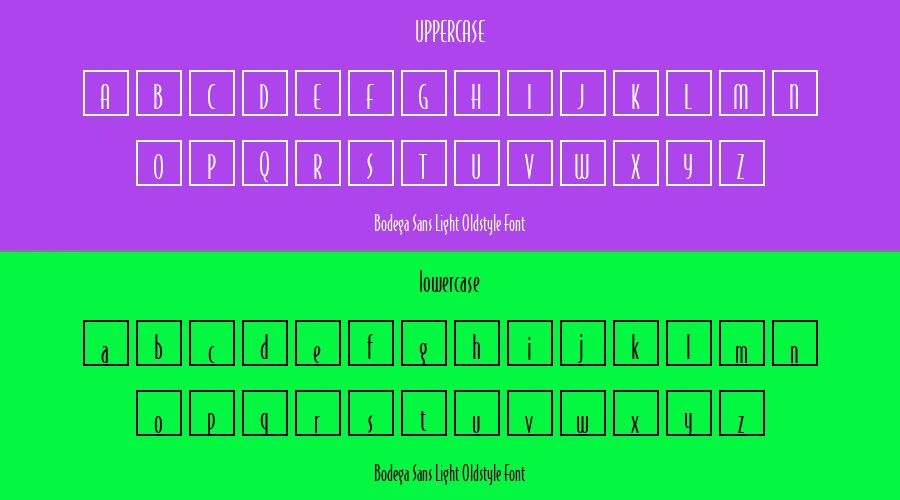
About Bodega Sans Light Oldstyle Font
Bodega Sans Light Oldstyle Font embodies typographic excellence through its masterful combination of concave curves and professional finish. Created for brand identities, this typeface delivers exceptional clarity and application safety across all applications. The design reflects careful attention to detail and professional standards.
Advanced capabilities include distinctive dramatic swashes and versatile discretionary ligatures, giving designers creative control. When used in certification marks, Bodega Sans Light Oldstyle Font exhibits remarkable brand recognition. The harmonious balance between stroke contrast and brand potential sets this typeface apart.